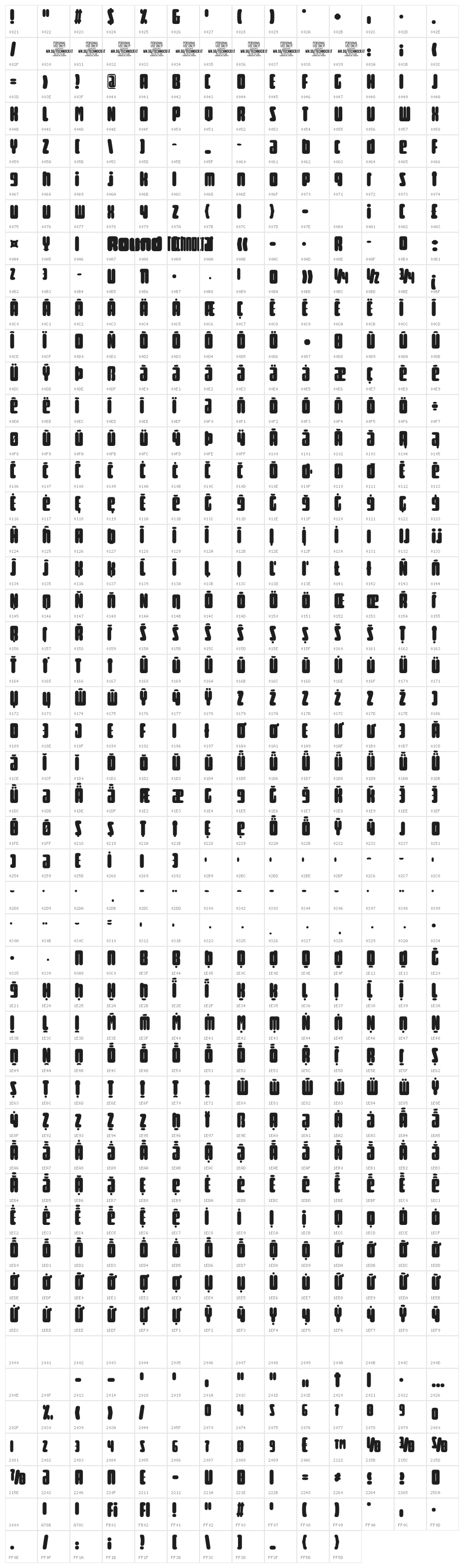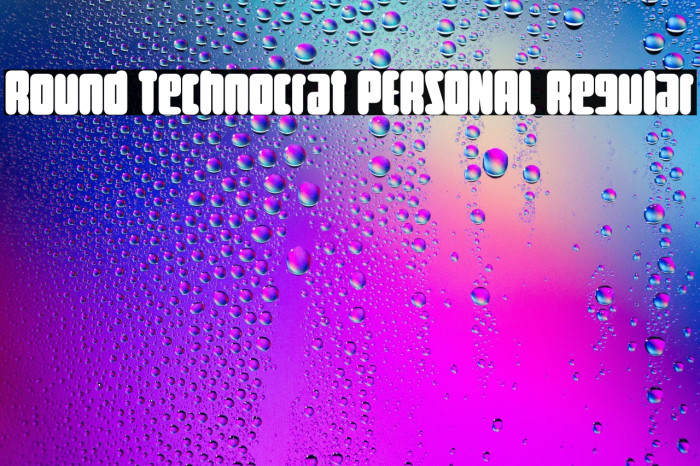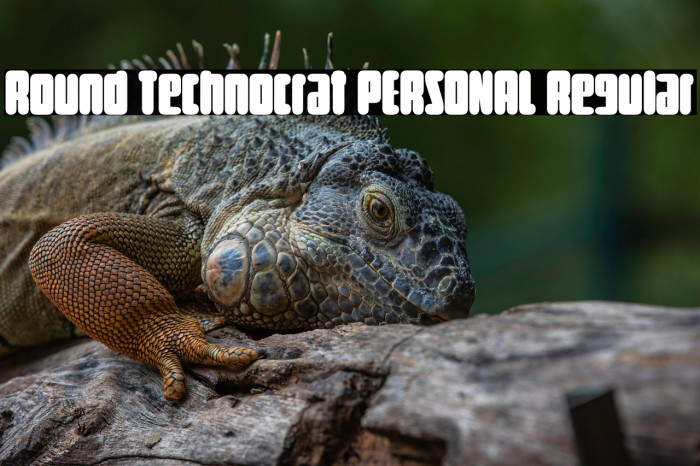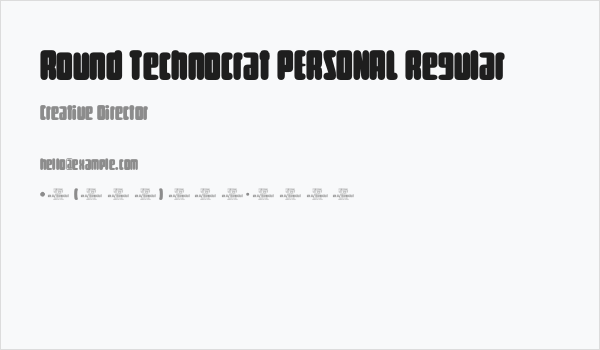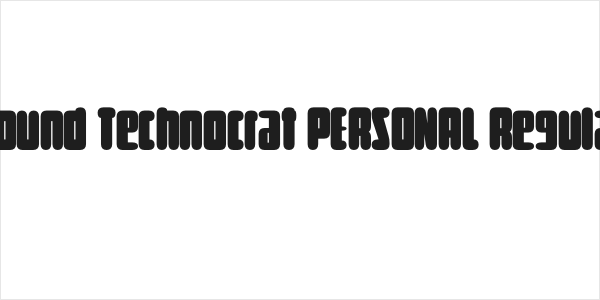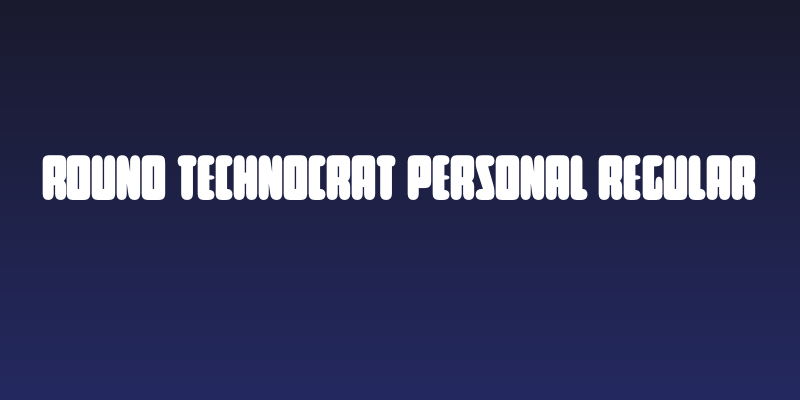
Round Technocrat PERSONAL Regular Font
Round Technocrat PERSONAL Regular Description
This font features a bold, rounded style with a distinctly modern and futuristic aesthetic. The characters are uniformly thick, creating a strong visual impact. The rounded edges soften the overall appearance, making it approachable yet assertive. The uppercase and lowercase letters maintain a consistent height, contributing to a cohesive look. The numerals and special characters follow the same design principles, ensuring uniformity across all glyphs. This font is ideal for projects that require a bold statement, such as branding, headlines, or posters. Its unique style makes it stand out, while the rounded forms add a touch of friendliness.
| Proposed Projects | Ideal for branding, headlines, posters, and any project needing a bold statement. |